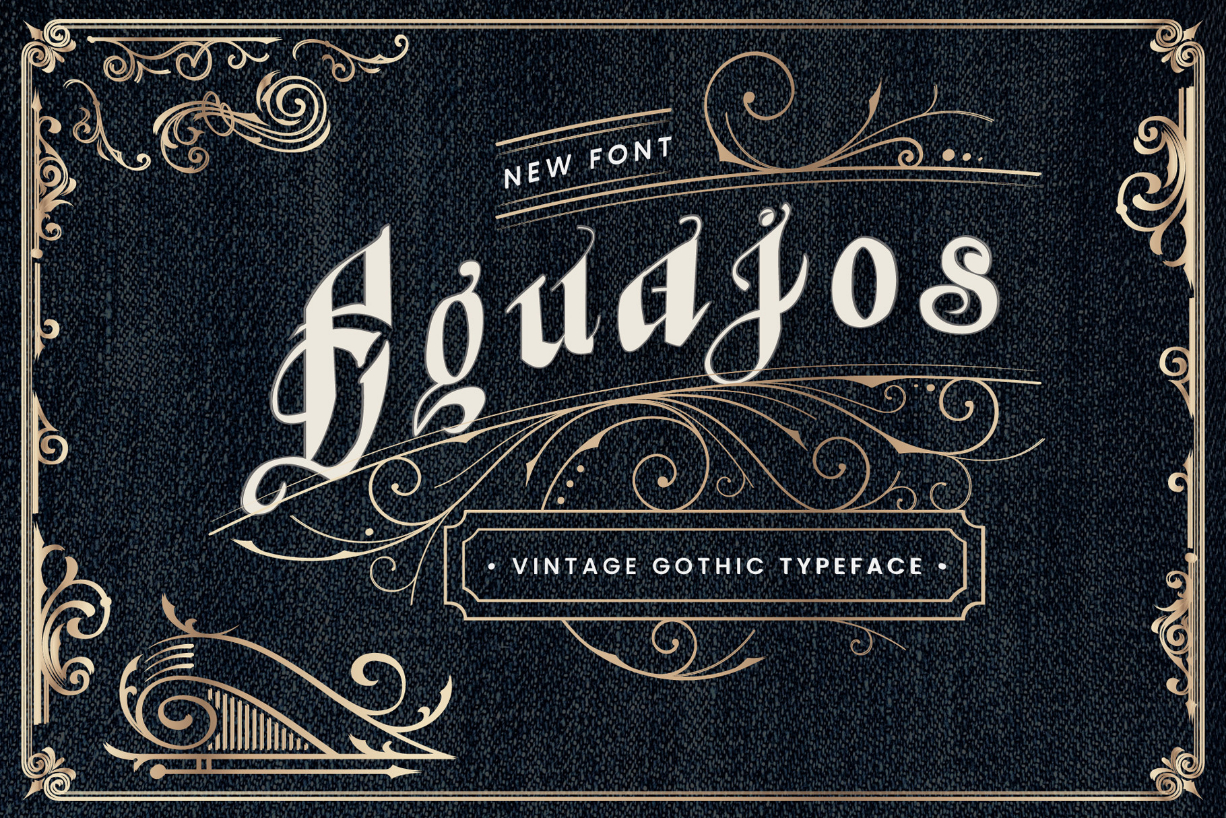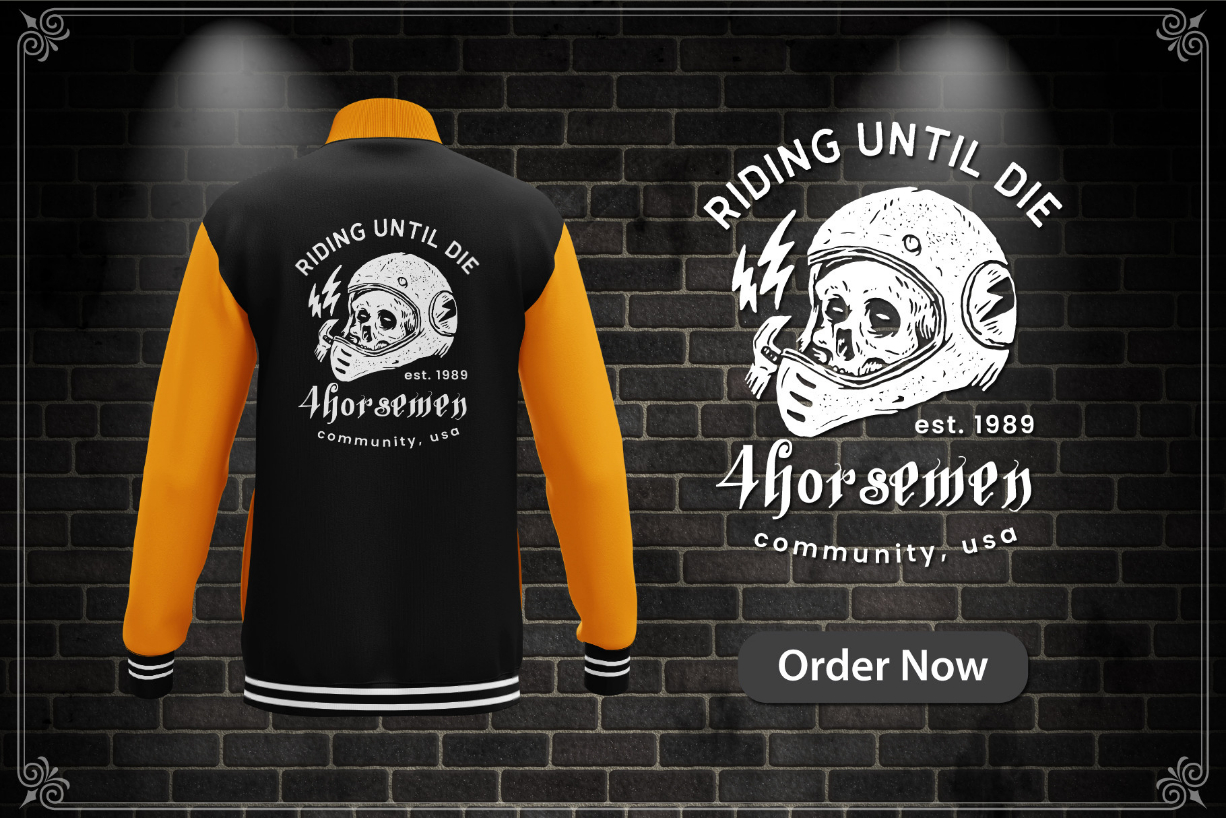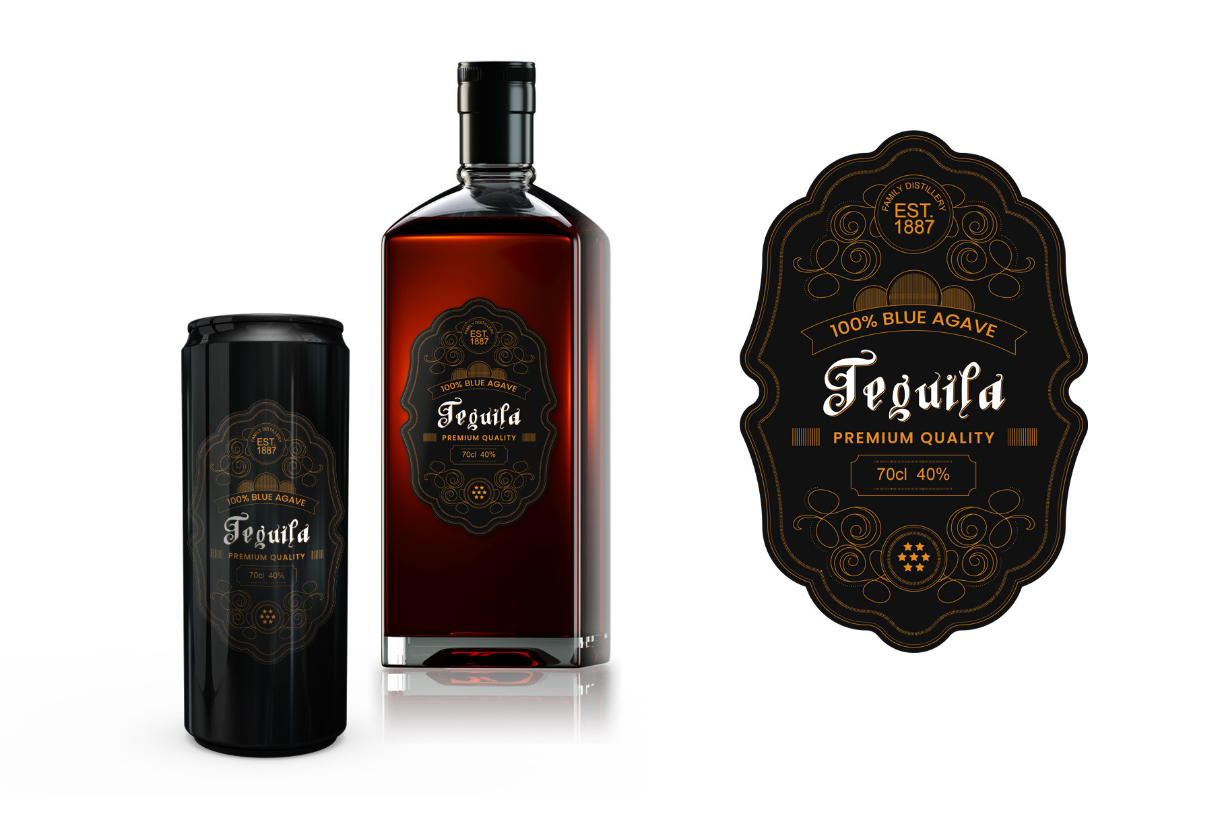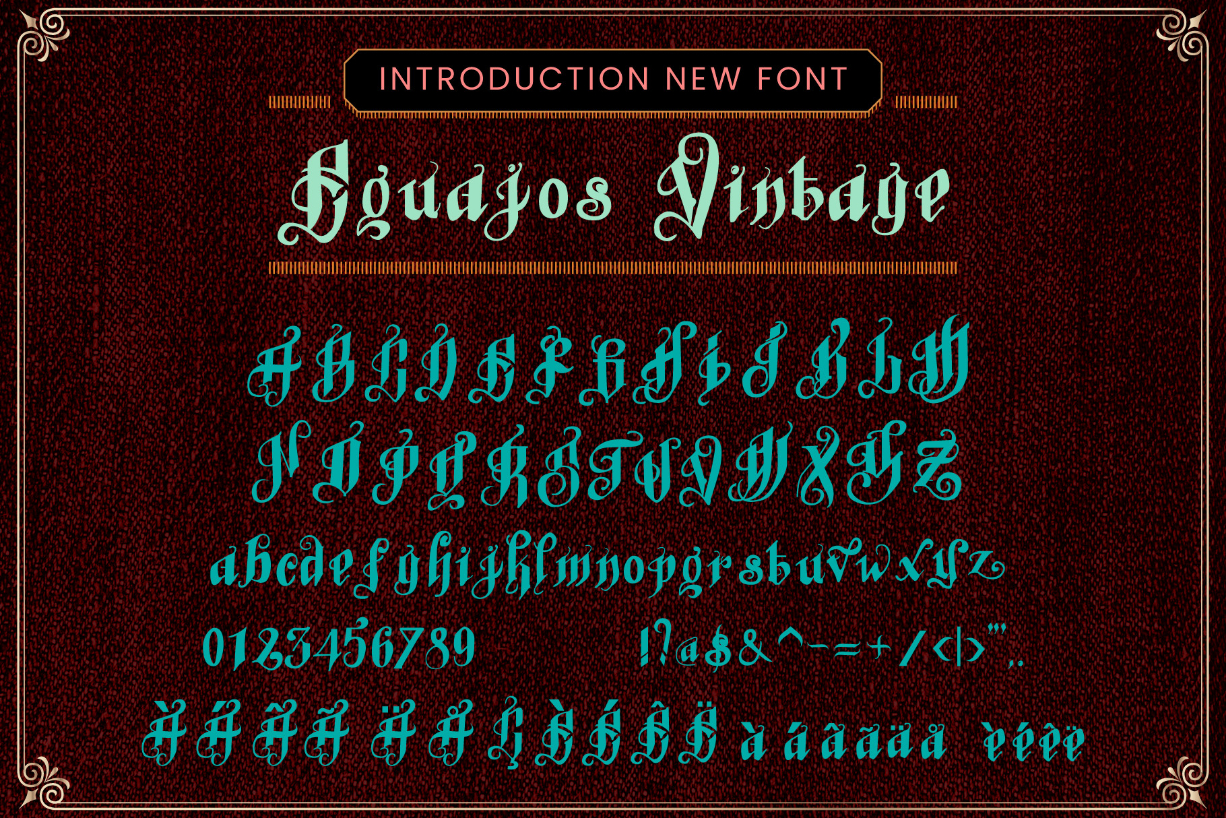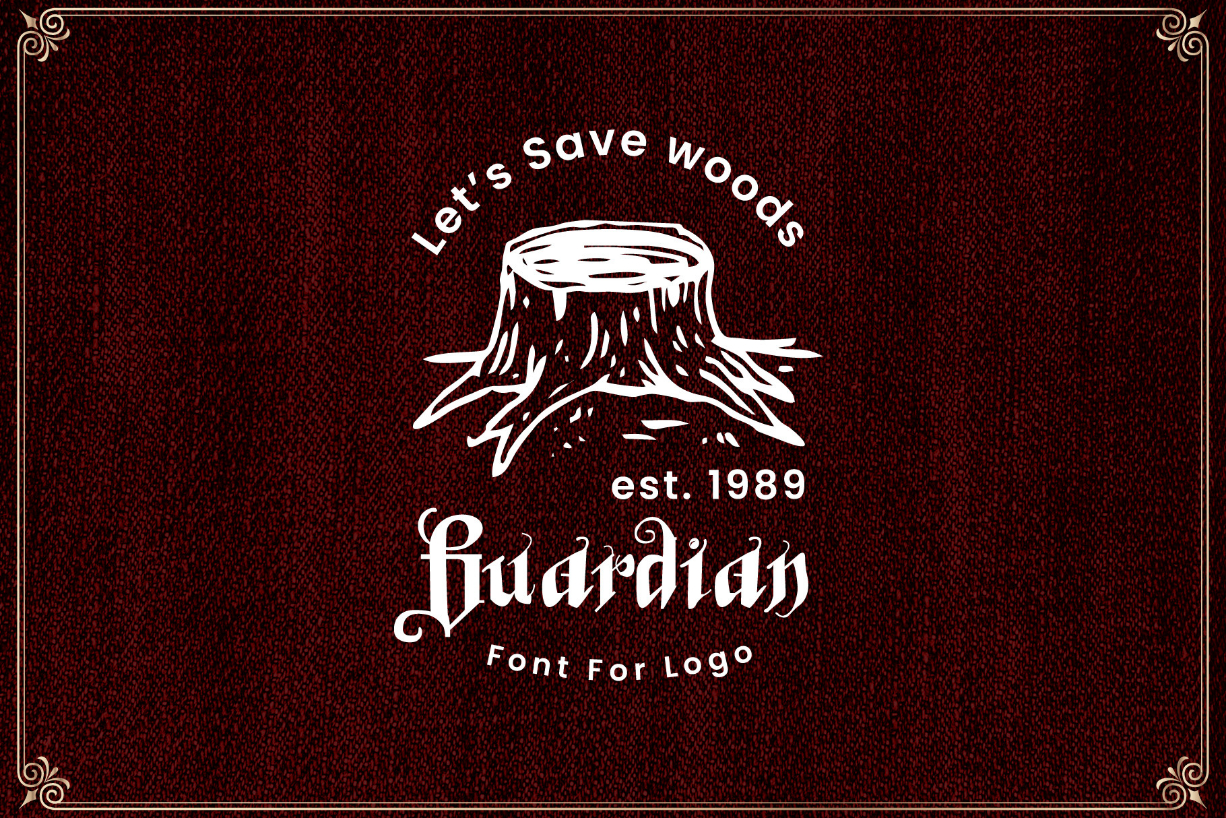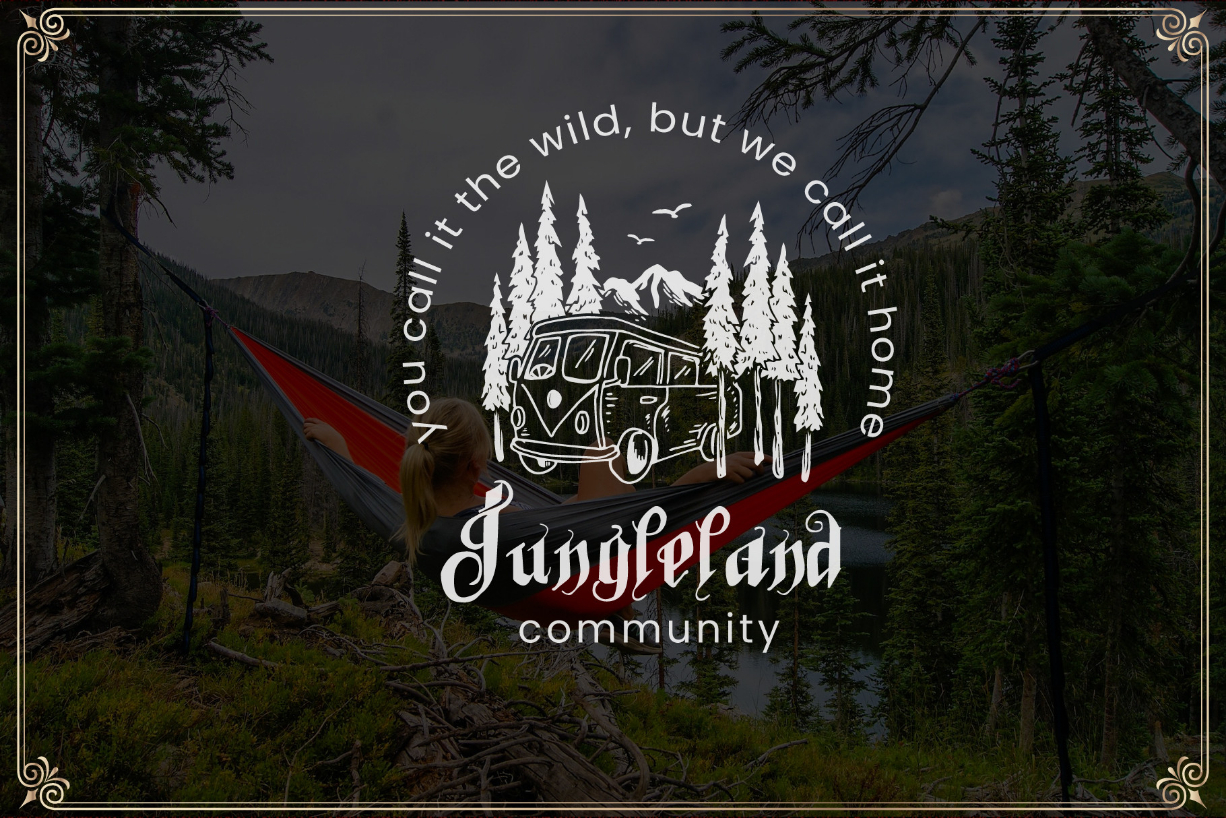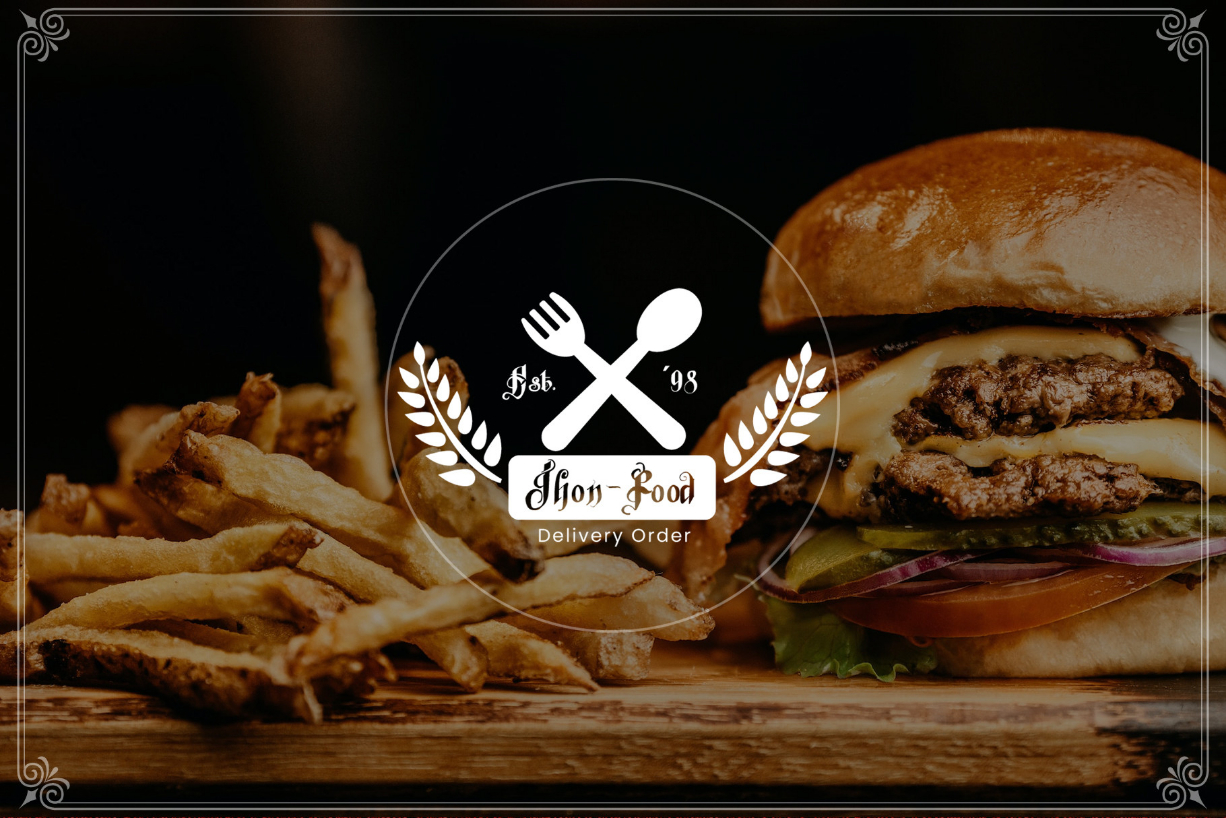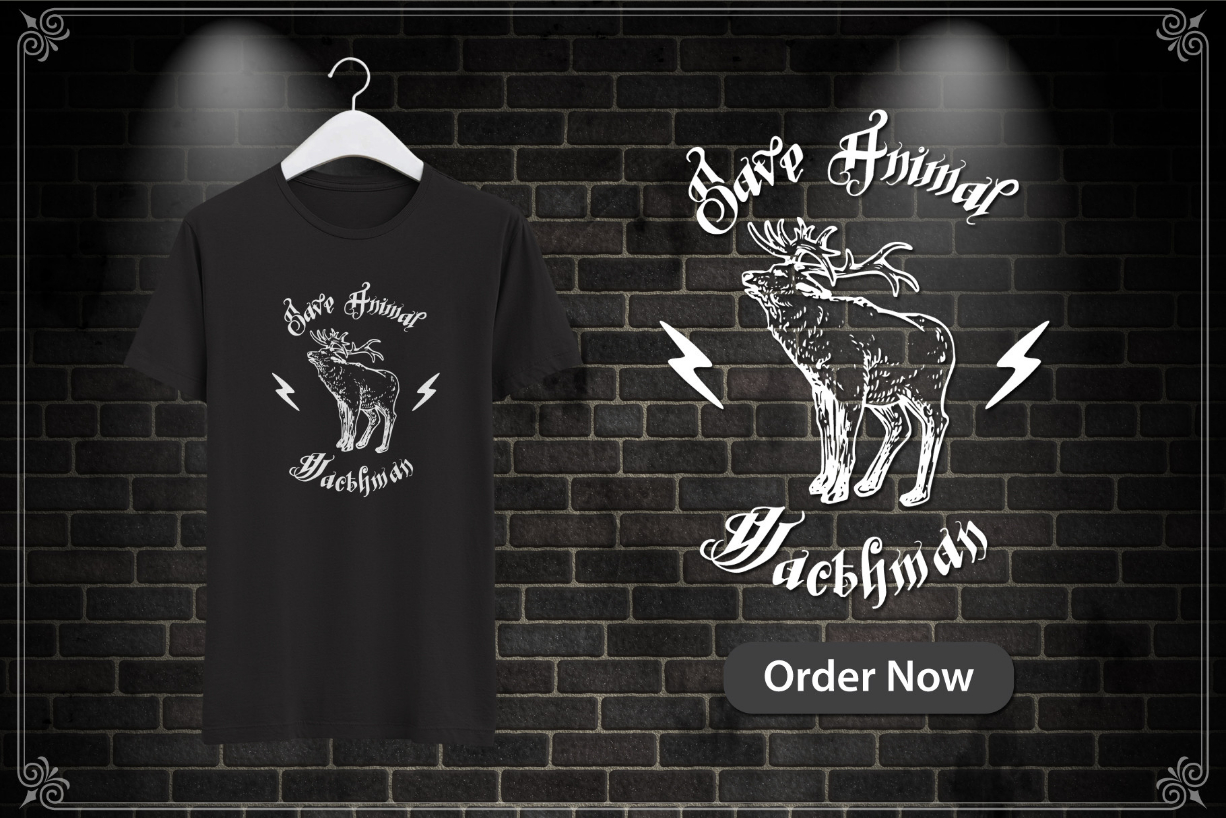
Equajos Font
About Equajos Font
Equajos Vintage Font inspired by Retro Gothic lettering sign and art. It still looks bold and solid. it’s perfect for many different projects such as headlines, logotypes, apparel, invitation, labels, branding, packaging, advertising, etc. Also can be used for Creative Projects.